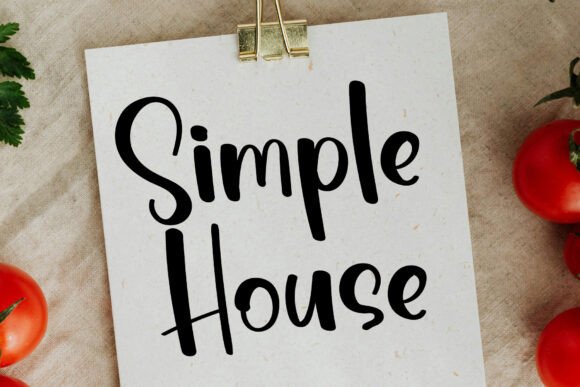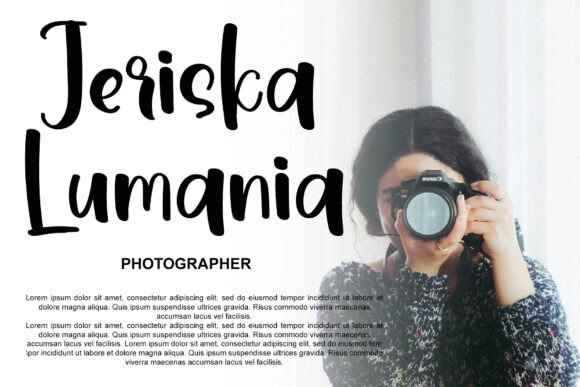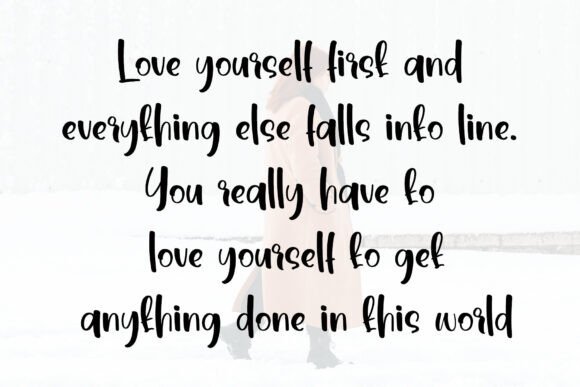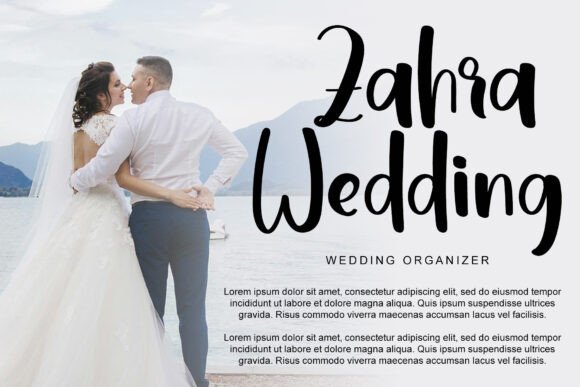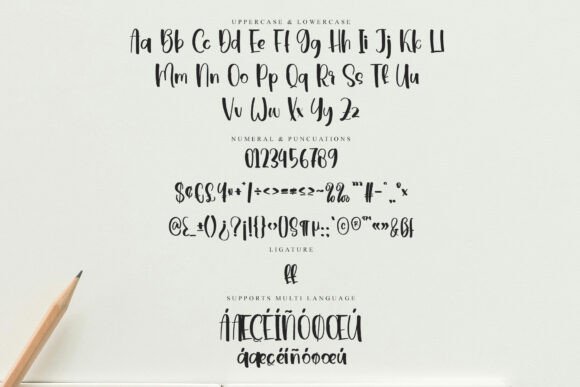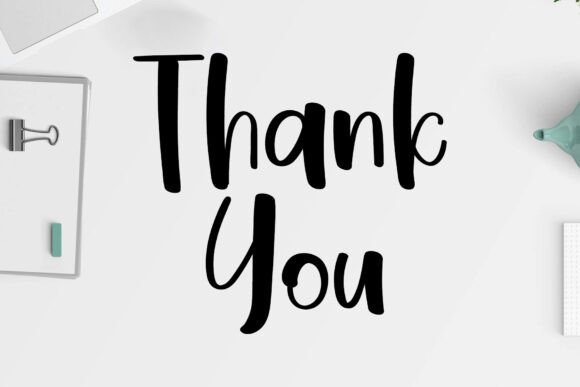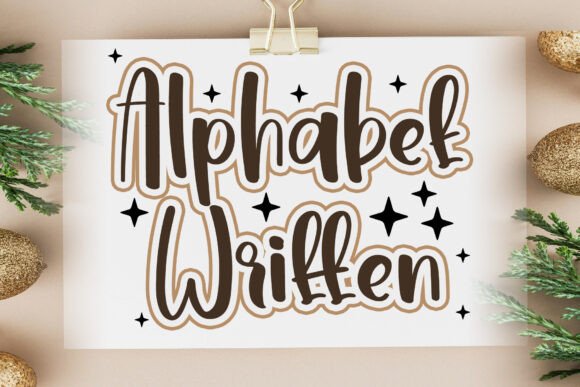
Introducing Alphabet Written Font: Elevate Your Designs with Elegance
Are you a designer, crafty DIY enthusiast, or social media influencer looking for a font that can add a touch of sophistication to your creative projects? Look no further than Alphabet Written Font, a beautiful handwritten font designed to bring a sense of elegance and refinement to your designs. In this article, we’ll explore the features and benefits of Alphabet Written Font, and how it can help you turn your creative ideas into stunning works of art.
What is Alphabet Written Font?
Alphabet Written Font is a carefully crafted handwritten font that boasts a unique and stylish aesthetic. With its flowing lines, delicate curves, and precise lettering, this font is perfect for adding a personal touch to your designs. Whether you’re creating social media graphics, crafting DIY projects, or designing marketing materials, Alphabet Written Font is the perfect choice for anyone looking to elevate their designs with a touch of elegance.
Key Features of Alphabet Written Font
• Handwritten with love: Alphabet Written Font is meticulously crafted to mimic the look and feel of handwritten lettering, giving your designs a personal and human touch.
• Elegant and refined: With its flowing lines and delicate curves, this font exudes sophistication and elegance, making it perfect for high-end designs.
• Versatile: Alphabet Written Font is suitable for a wide range of design applications, from Instagram graphics to calligraphy scripts, and from DIY projects to marketing materials.
Use Cases for Alphabet Written Font
So, how can you use Alphabet Written Font to elevate your designs? Here are a few ideas to get you started:
• Instagram graphics: Add a touch of elegance to your Instagram feed with Alphabet Written Font. Use it to create stunning quotes, captions, or stories that will make your followers take notice.
• DIY projects: Take your DIY projects to the next level with Alphabet Written Font. Use it to create beautiful calligraphy scripts, journal pages, or craft labels that will add a personal touch to your creations.
• Marketing materials: Use Alphabet Written Font to create professional-looking marketing materials, such as brochures, flyers, or business cards, that will help you stand out from the competition.
• Wedding and event planning: This font is perfect for creating beautiful wedding invitations, place cards, or event signage that will add a touch of elegance to your special day.
Why Choose Alphabet Written Font?
With so many fonts available, why choose Alphabet Written Font? Here are a few reasons why this font stands out from the rest:
• Unique and stylish: Alphabet Written Font boasts a unique and stylish aesthetic that will set your designs apart from the rest.
• High-quality: This font is meticulously crafted to ensure that it looks great in any design application.
In conclusion, Alphabet Written Font is a magical handwritten font that’s perfect for designers, crafty DIY enthusiasts, and social media influencers looking to add a touch of elegance to their creative projects. With its flowing lines, delicate curves, and precise lettering, this font is sure to turn any creative idea into a stunning work of art. So why wait? Download Alphabet Written Font today and start elevating your designs with elegance and sophistication!